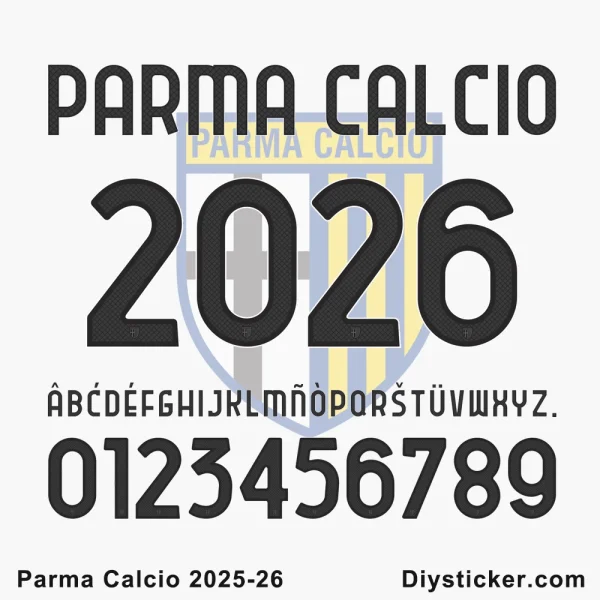
Design with the classic elegance of I Crociati using the official Parma Calcio 2025-26 Font. This professionally crafted typeface replicates the club’s distinctive lettering, perfect for creating authentic designs for any project supporting the iconic Italian club.